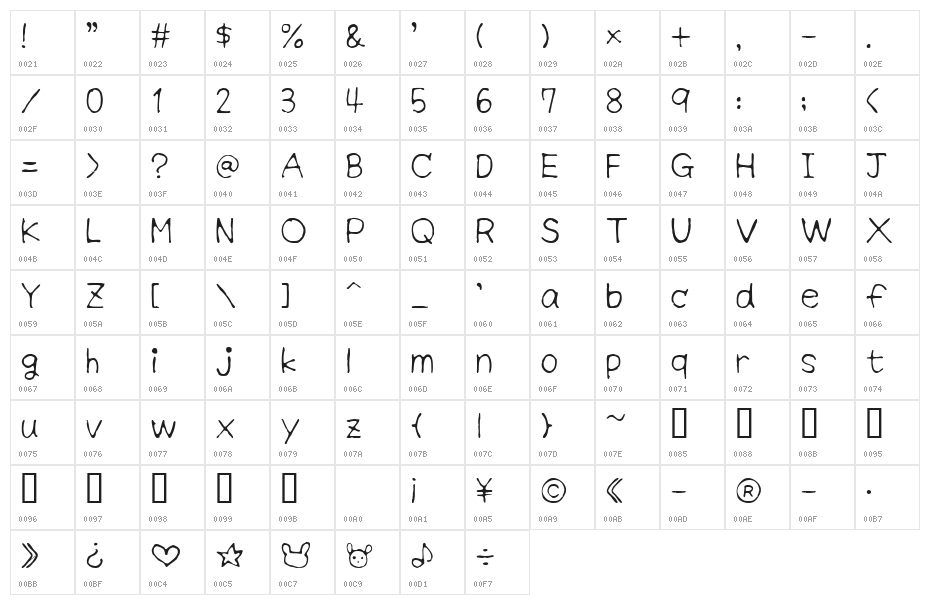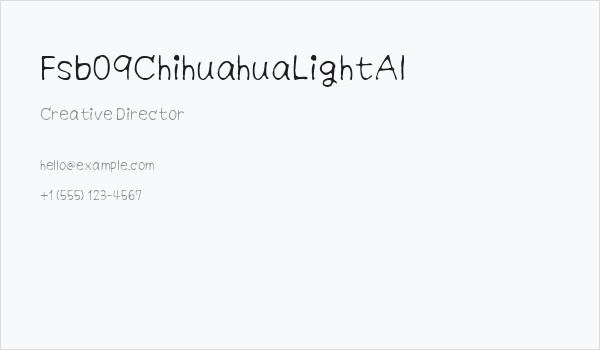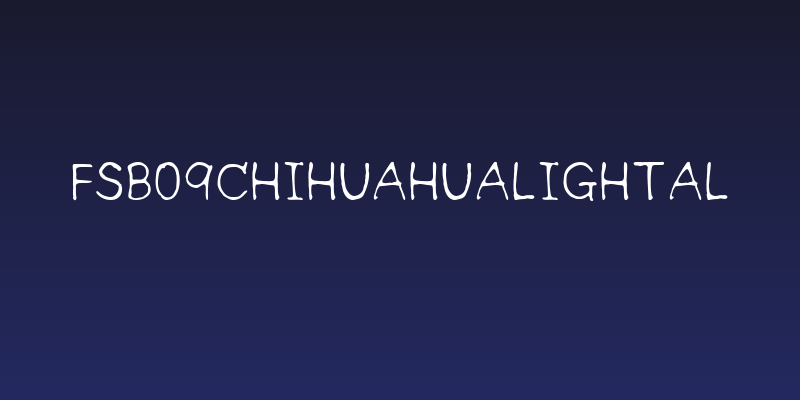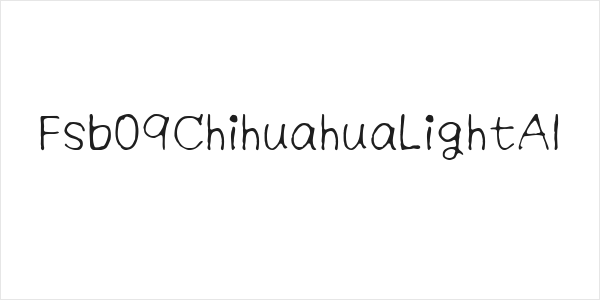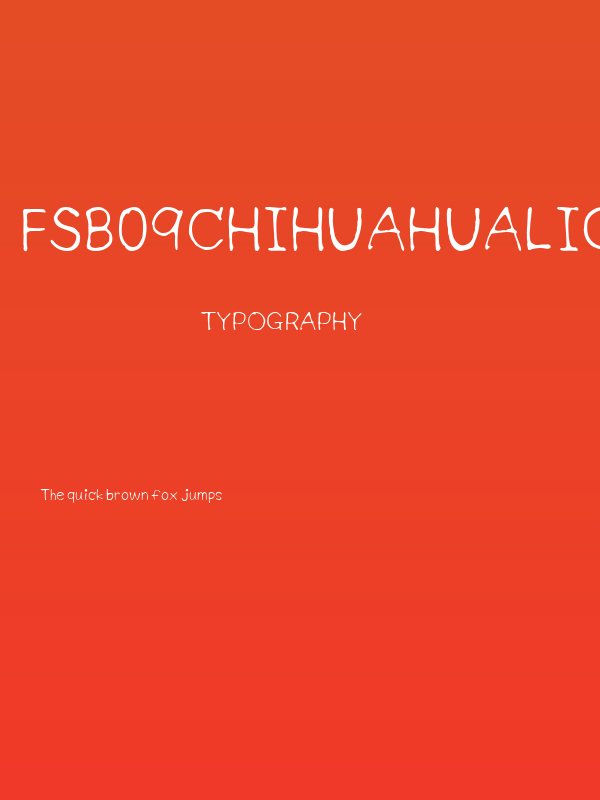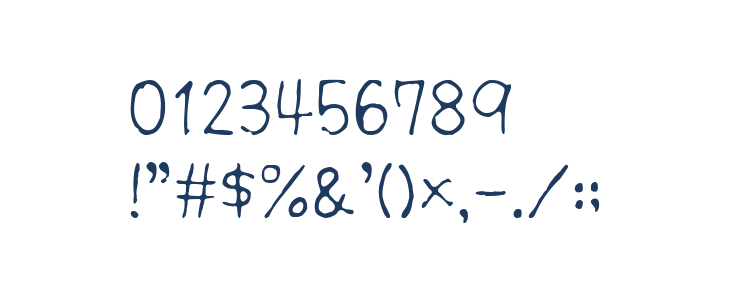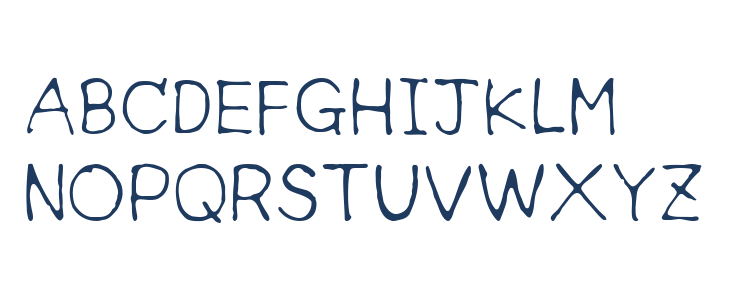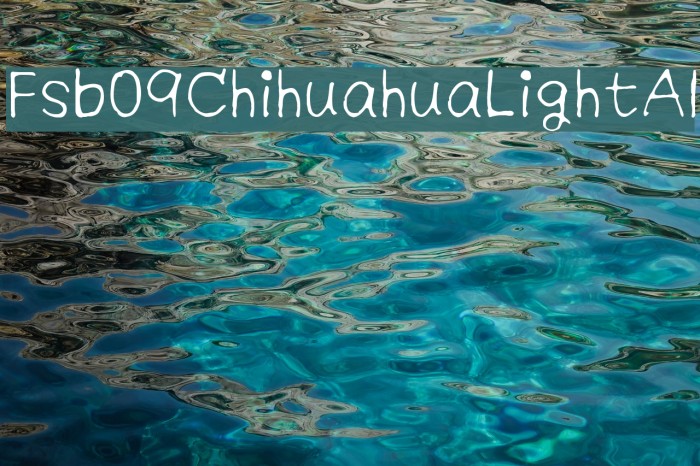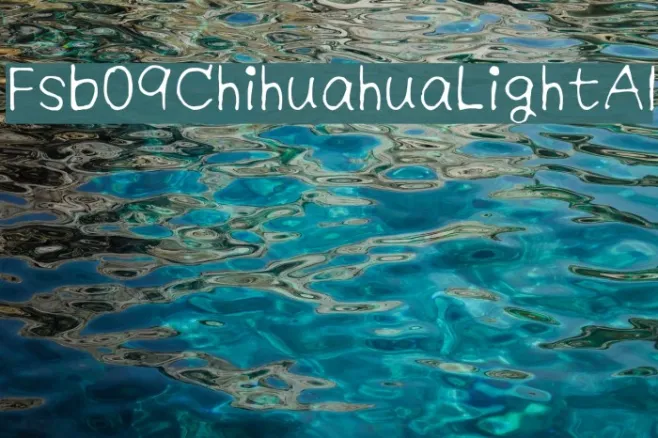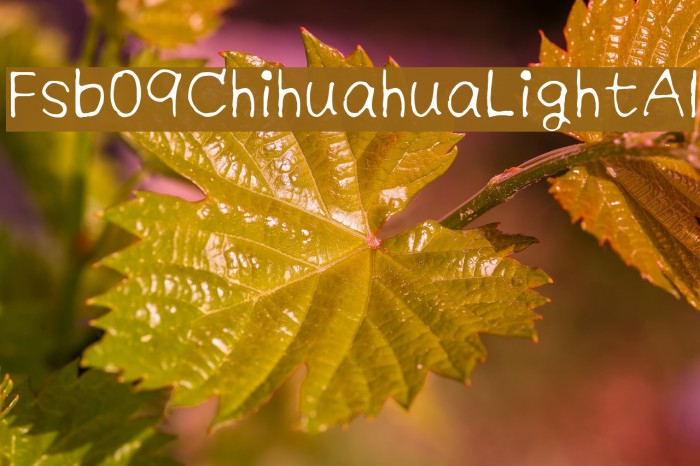
Fsb09ChihuahuaLightAl Font
Fsb09ChihuahuaLightAl Description
This font features a playful and informal handwritten style, characterized by its uneven strokes and slightly irregular letterforms. The uppercase and lowercase letters maintain a consistent flow, giving it a casual and friendly appearance. The numerals and special characters follow the same whimsical design, making it suitable for creative projects. The strokes are moderately thick, providing a clear and legible look while retaining a hand-drawn charm. This font is ideal for projects that require a personal touch, such as invitations, greeting cards, or children's books.
| Proposed Projects | Ideal for invitations, greeting cards, children's books, and creative projects. |